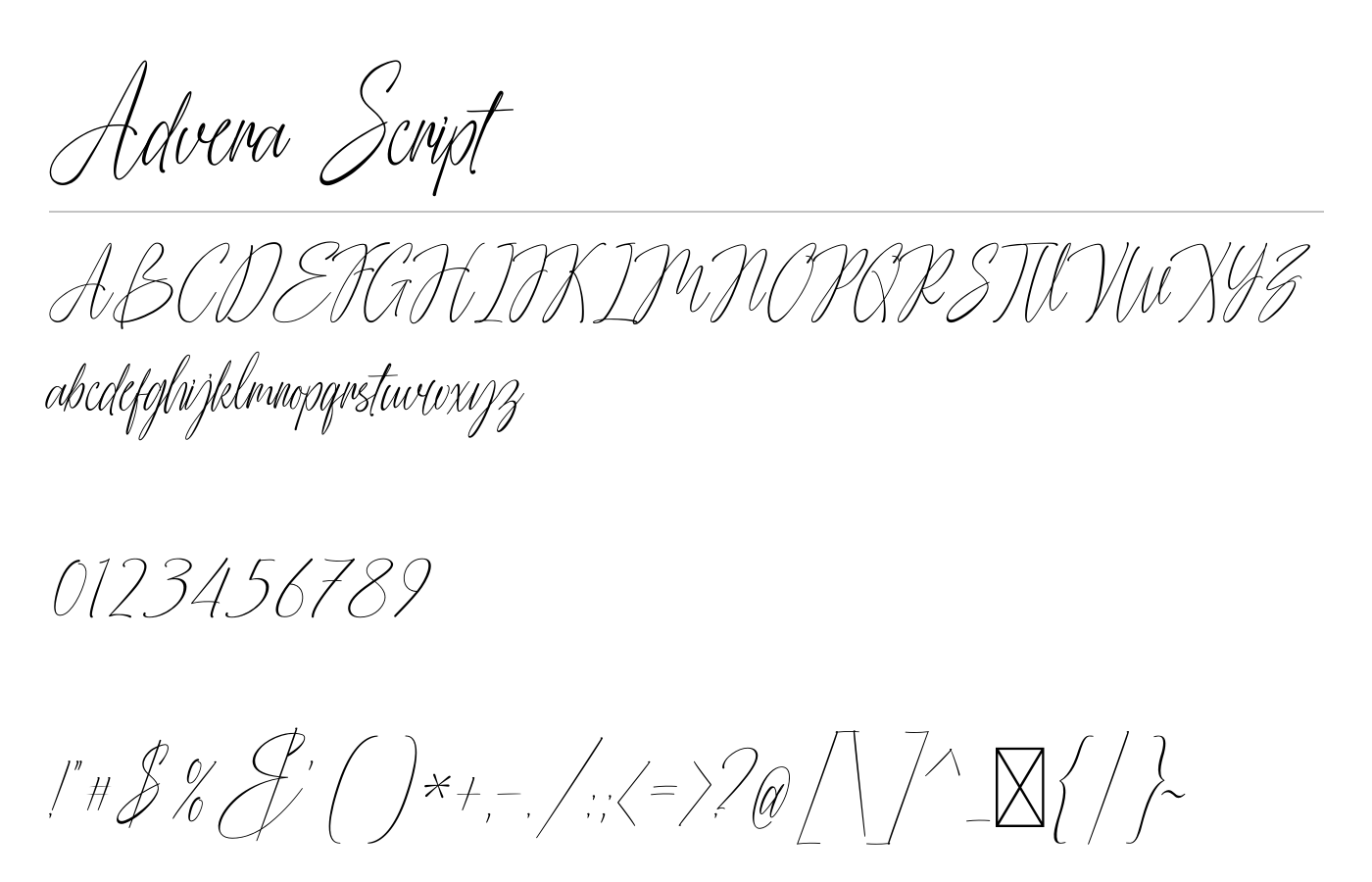
Advera Script is a delicate and elegant script font that features slim, flowing letterforms with a natural, handwritten feel. Its fine strokes and slightly irregular shapes give it a charming, personal touch, making it ideal for invitations, branding, and stylish editorial uses where a touch of sophistication and intimacy is desired. This font works beautifully for designs seeking a graceful and modern script style with a light and airy personality.
Advera Script Font